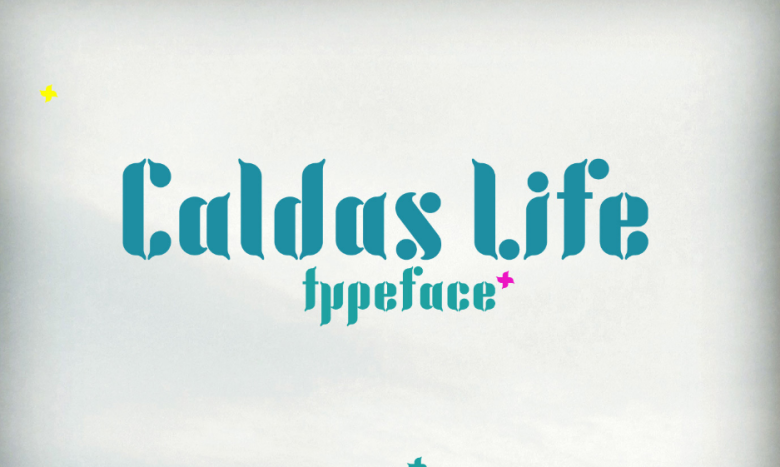
Caldas Life Typeface
Caldas Life is designed and shared by Ēvalds Vanags, a designer from Riga, Latvia. Caldas Life Typeface is a Display Font, combined with Blackletter Font. Caldas Life is very special, very elaborately designed and meticulously. With this font you can use it in many different design projects such as magazine covers, brand logos, headers movies etc. …